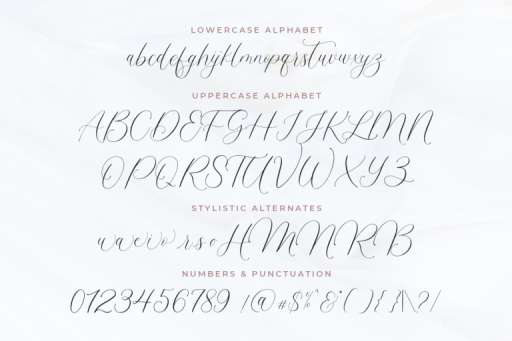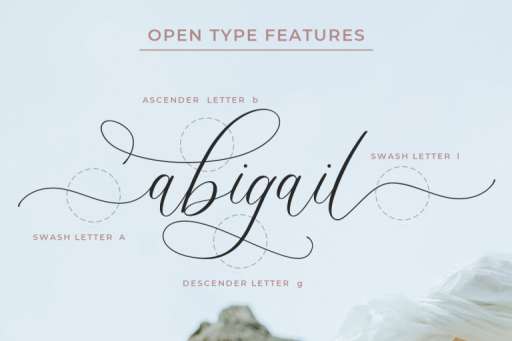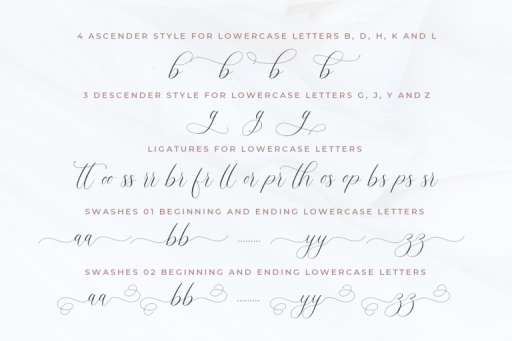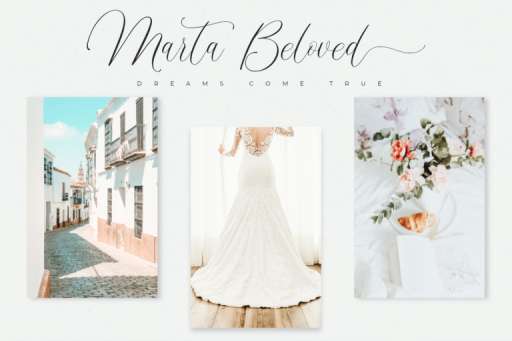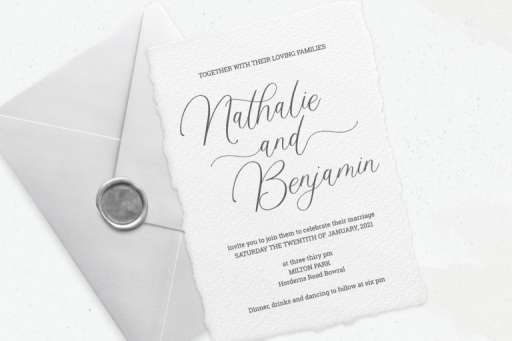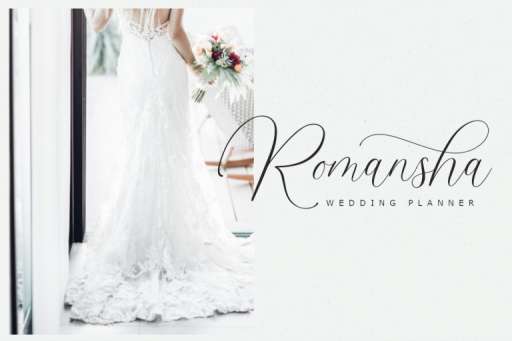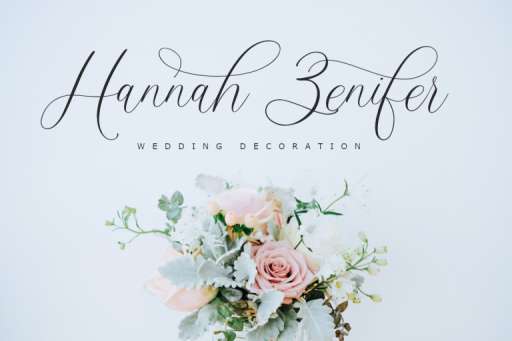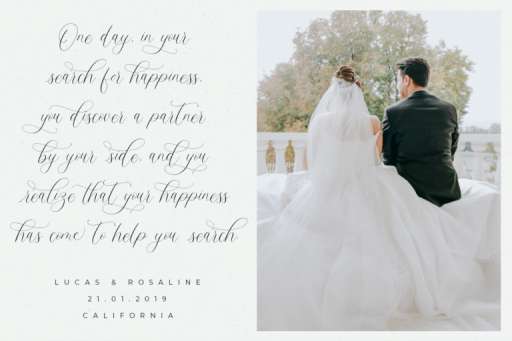
Maligai Script
Maligai Swash 1
Maligai Swash 2
Maligai Swash 3
Maligai Font – Romantic and Sweet Calligraphy
Maligai is a very elegant modern font with a mix of beginning & ending, ascender, and descender style. This beautiful script is for those who are needing of elegance and stylish for their designs. Looks very awesome for wedding, feminine branding, social media, card, logos, web, branding and so on.
• Maligai Script – includes a full set of Uppercase and Lowercase letters, Numerals, and Punctuation. Also, it contains ligatures, stylistic alternates, and a lot of Swashes lowercase beginning and ending characters.
• Maligai Script Swash 1 – This is a Maligai version of the script to access ascender (B, D, H, K, L) and descender (G, J, Y, Z) styles for lowercase letters,
• Maligai Script Swash 2,3 – Simply type the uppercase letter for ‘beginning swash’ and type in lowercase for ‘ending swash’ (if you are unable to access them with OpenType software).
• Alternates
• Swashes
• Multilingual